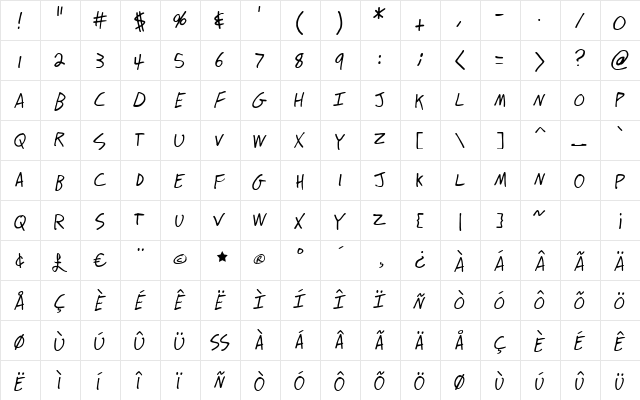
GFYPollak Regular
Design Context for GFYPollak Typeface
GFYPollak takes a measured approach to typography — its balanced proportions and neutral character make it a reliable workhorse for both digital and print work.